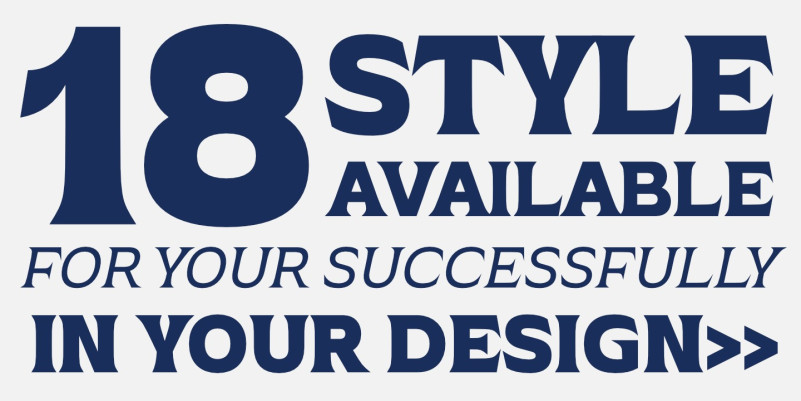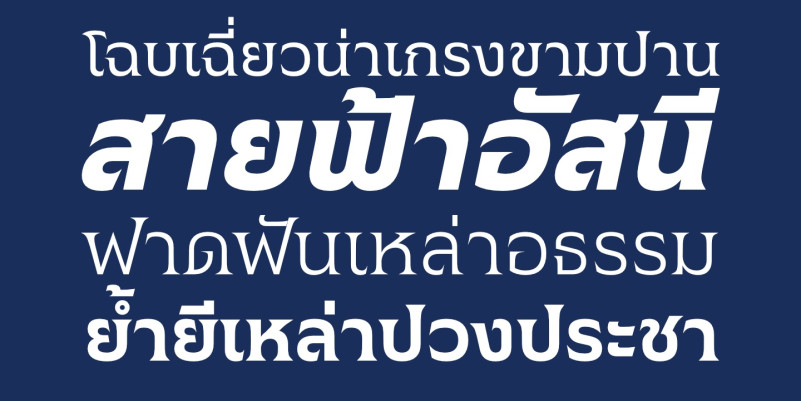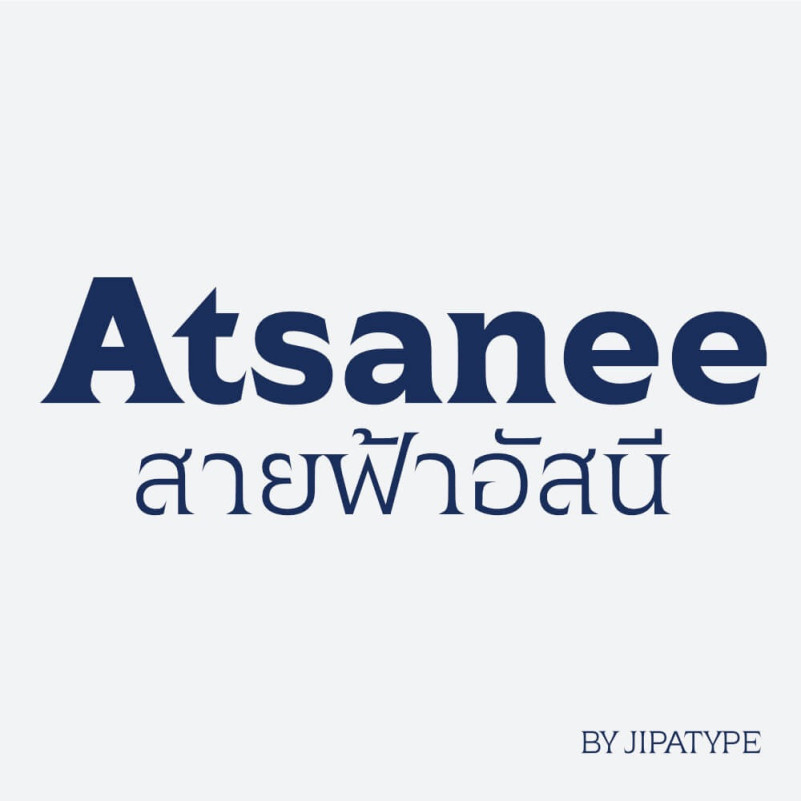
Atsanee Font
Atsanee Serif Font, It can easily be matched to an incredibly large set of projects, so add it to your creative ideas and notice how it makes them stand out!